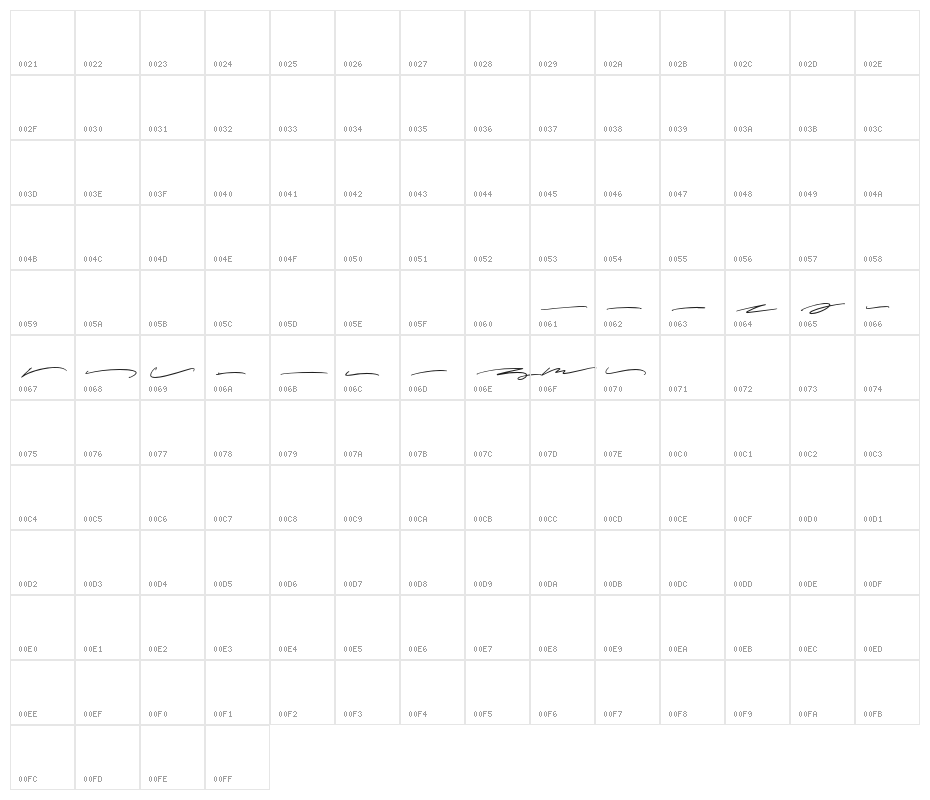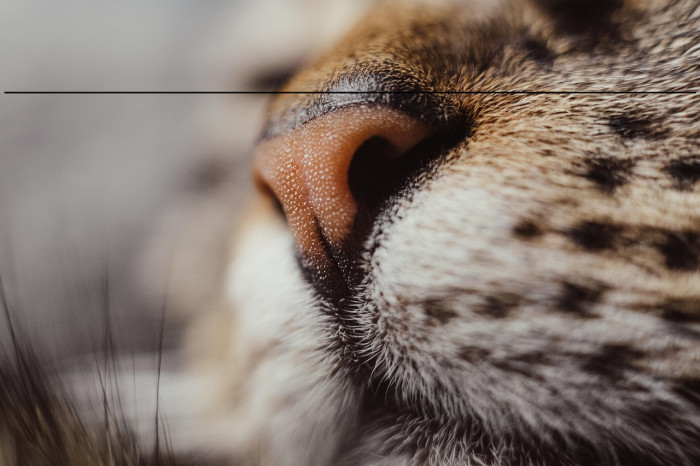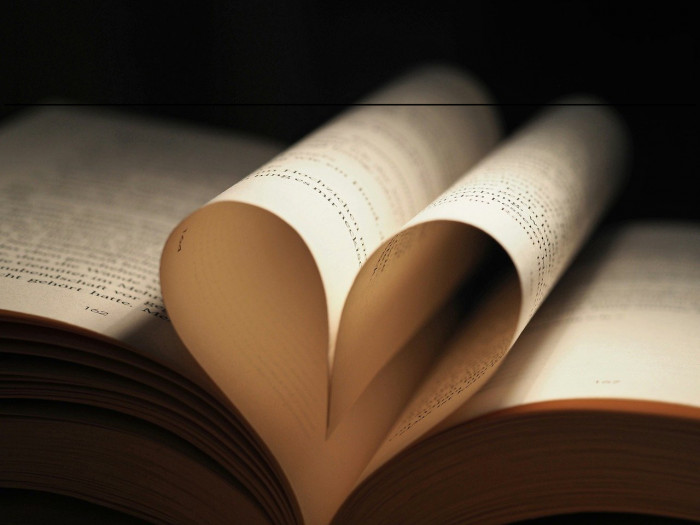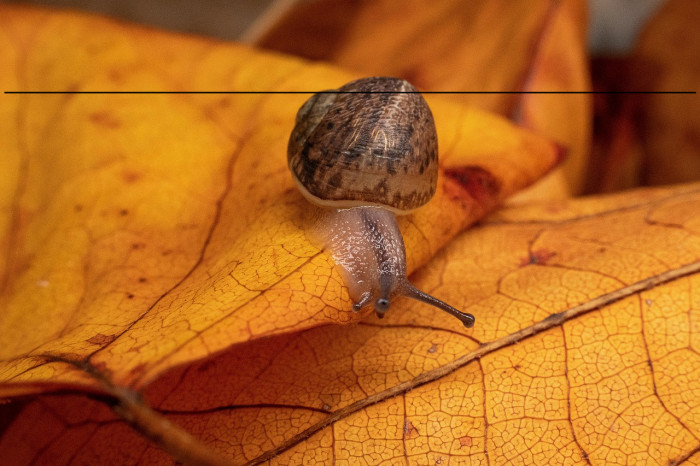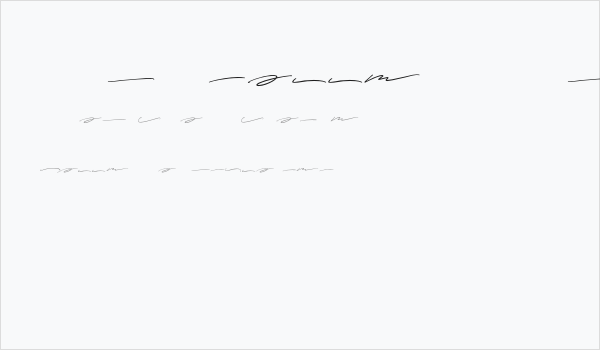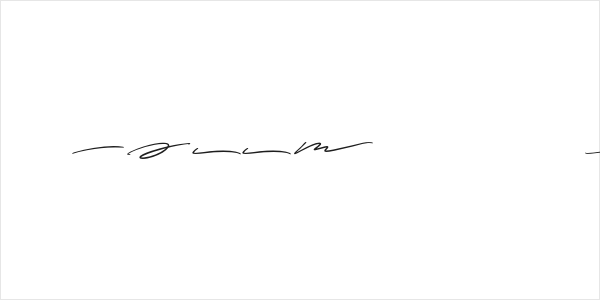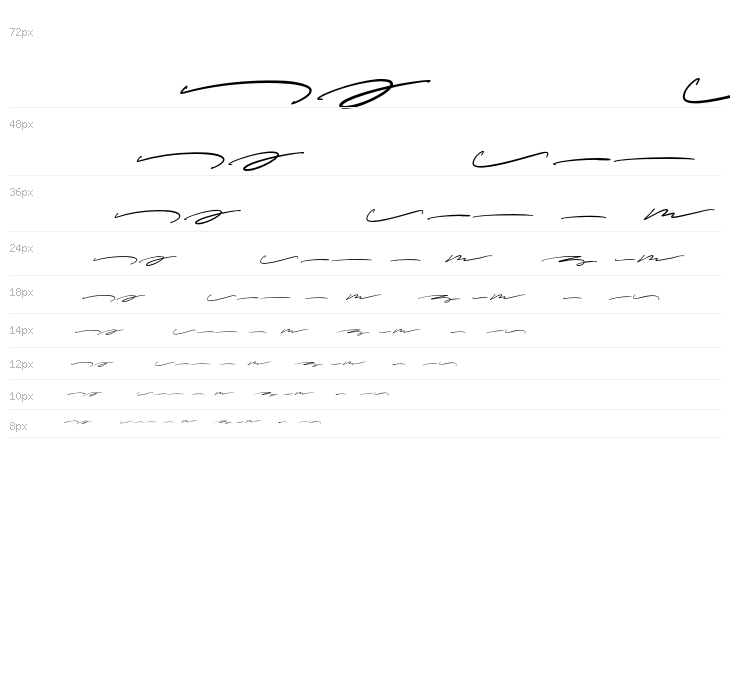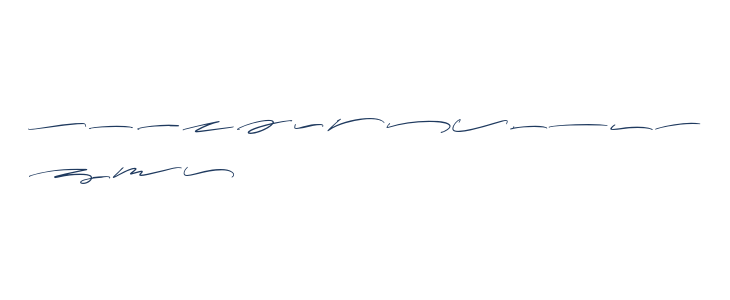
MassmellowSwash Font
This font features a whimsical and flowing script style, characterized by its elegant and fluid strokes. The letters are interconnected, creating a seamless and continuous line that mimics the natural movement of handwriting. The overall appearance is both artistic and sophisticated, making it suitable for creative and decorative applications. The strokes vary in thickness, adding a dynamic and lively feel to the text. This font exudes a sense of grace and fluidity, perfect for projects that require a touch of elegance and personal flair.
| Use Case | Logos, Invitations, Artistic projects |
| Proposed Projects | Ideal for wedding invitations, greeting cards, personal branding, and artistic projects. |